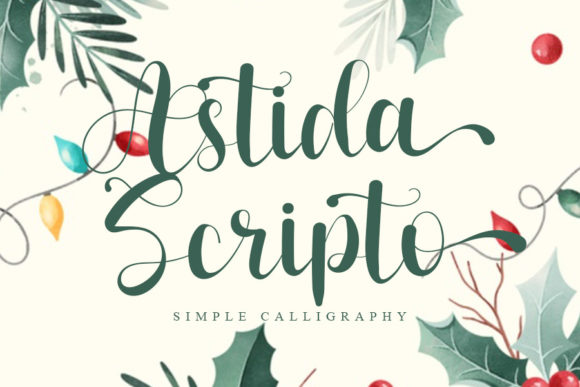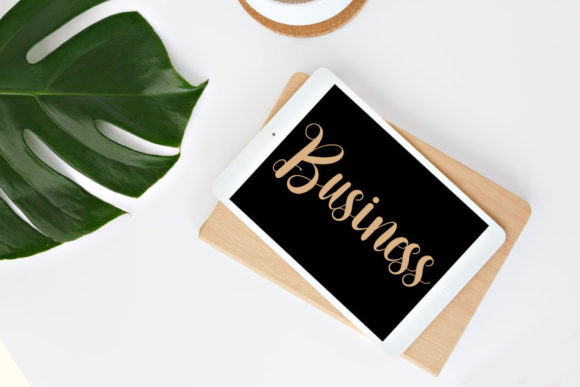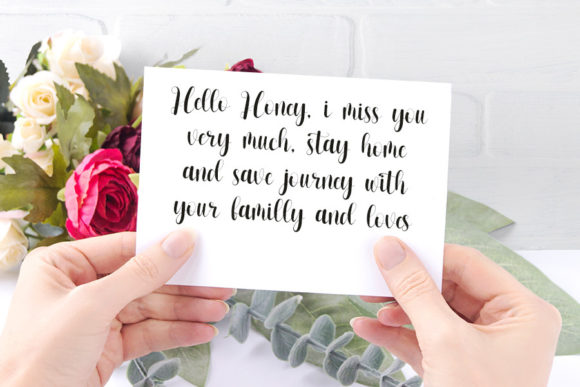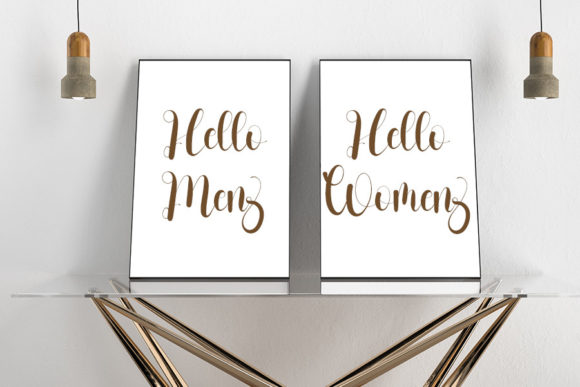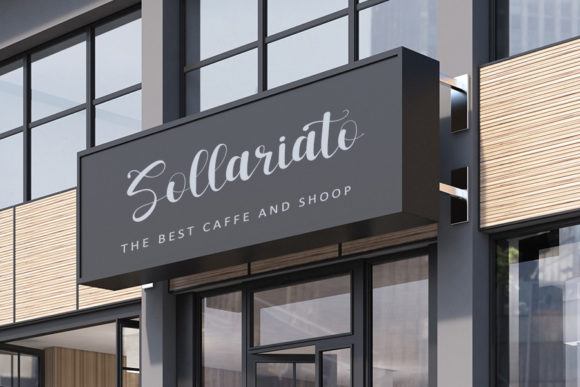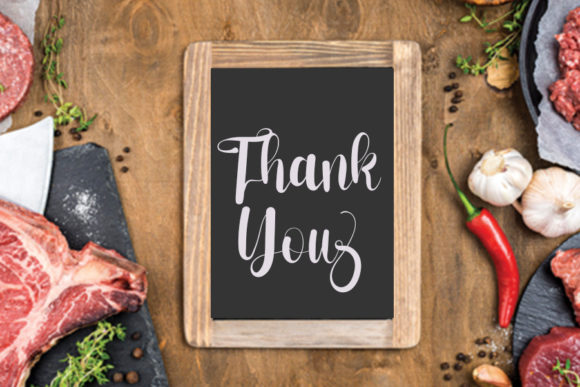
Astida Scripto Font
About Astida Scripto Font
Astida Scripto is a romantic and sweet scipt typeface with characters that dance along the baseline. It will add a luxury spark to any design project that you wish to create!